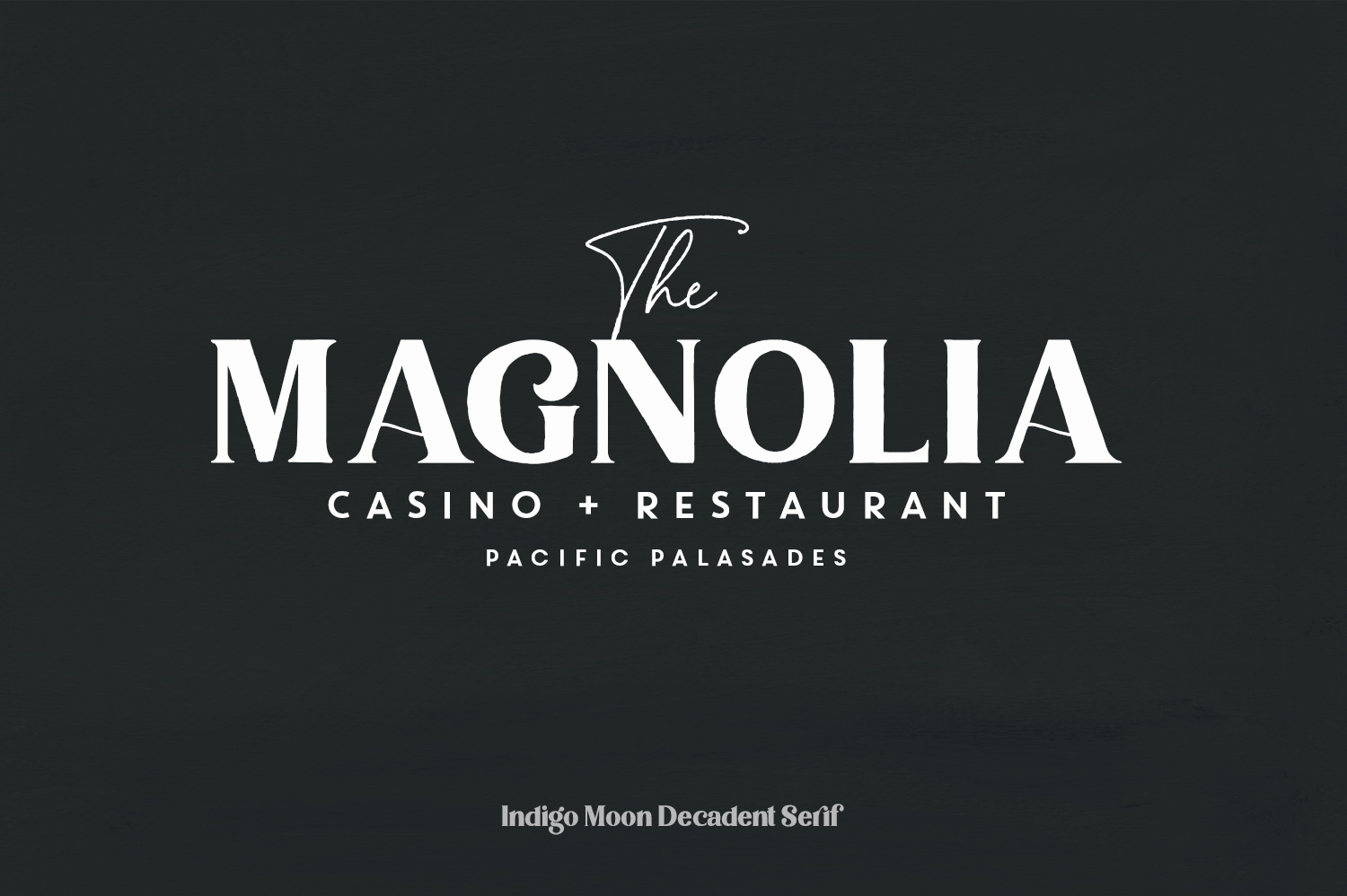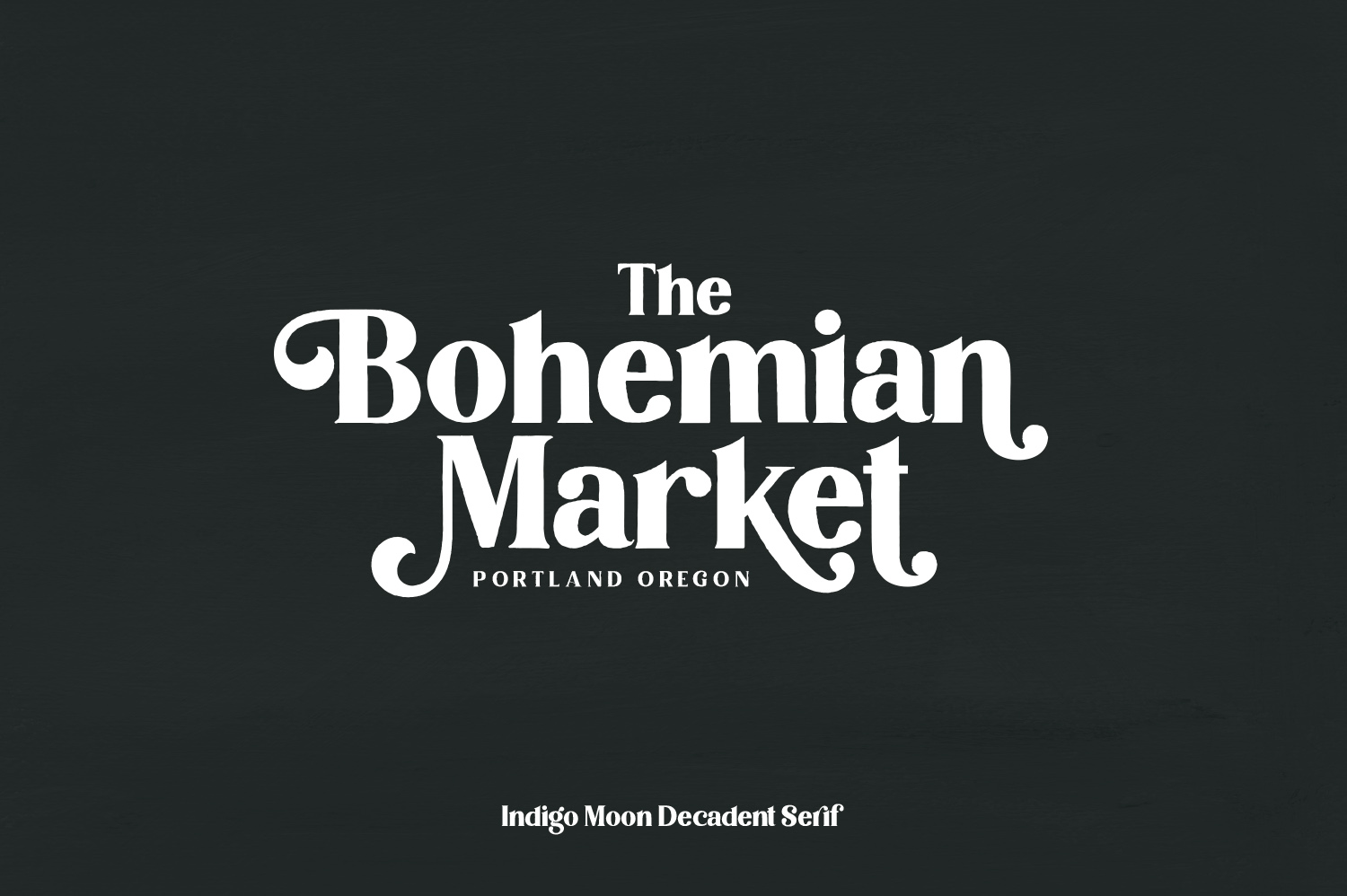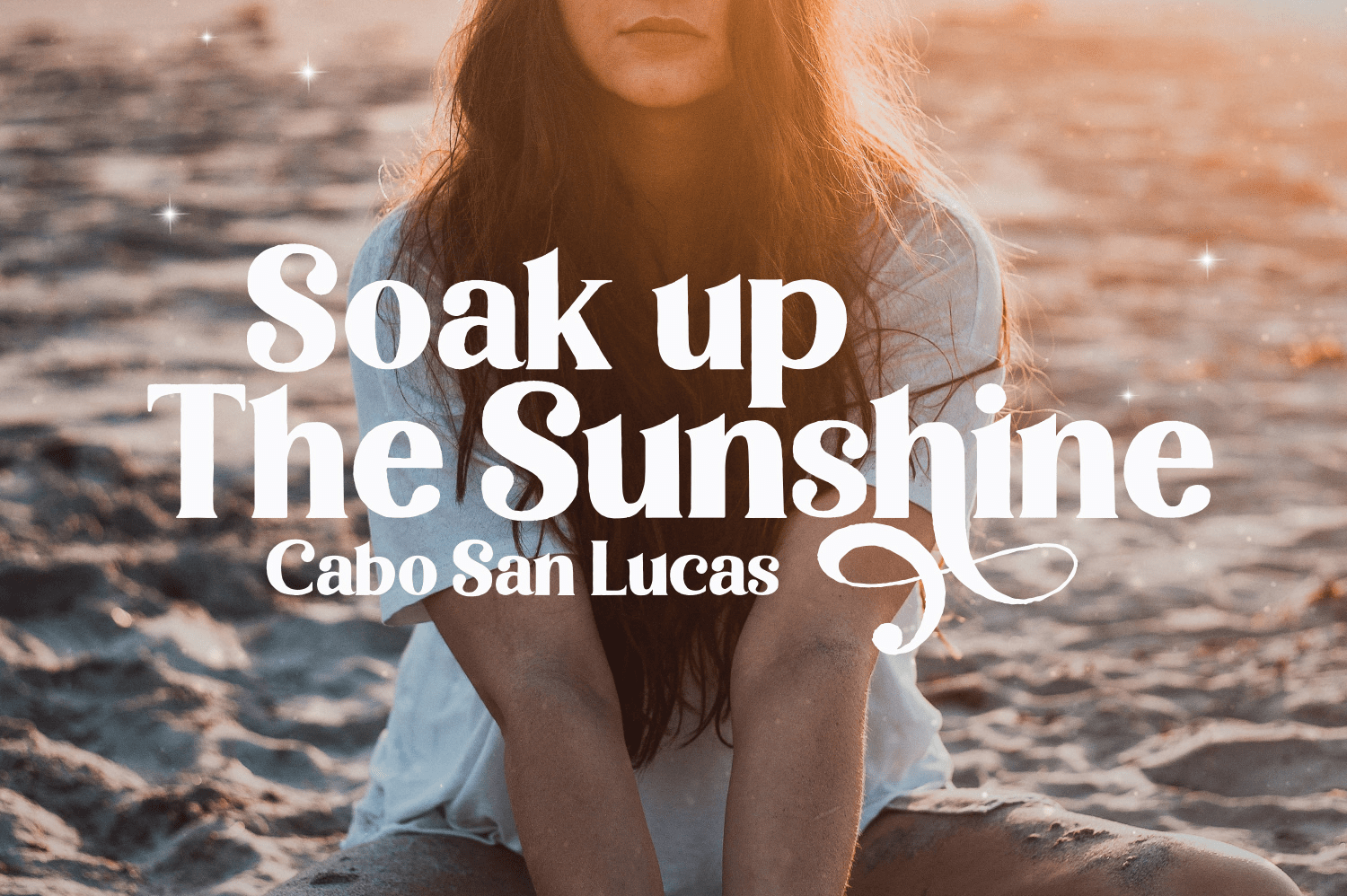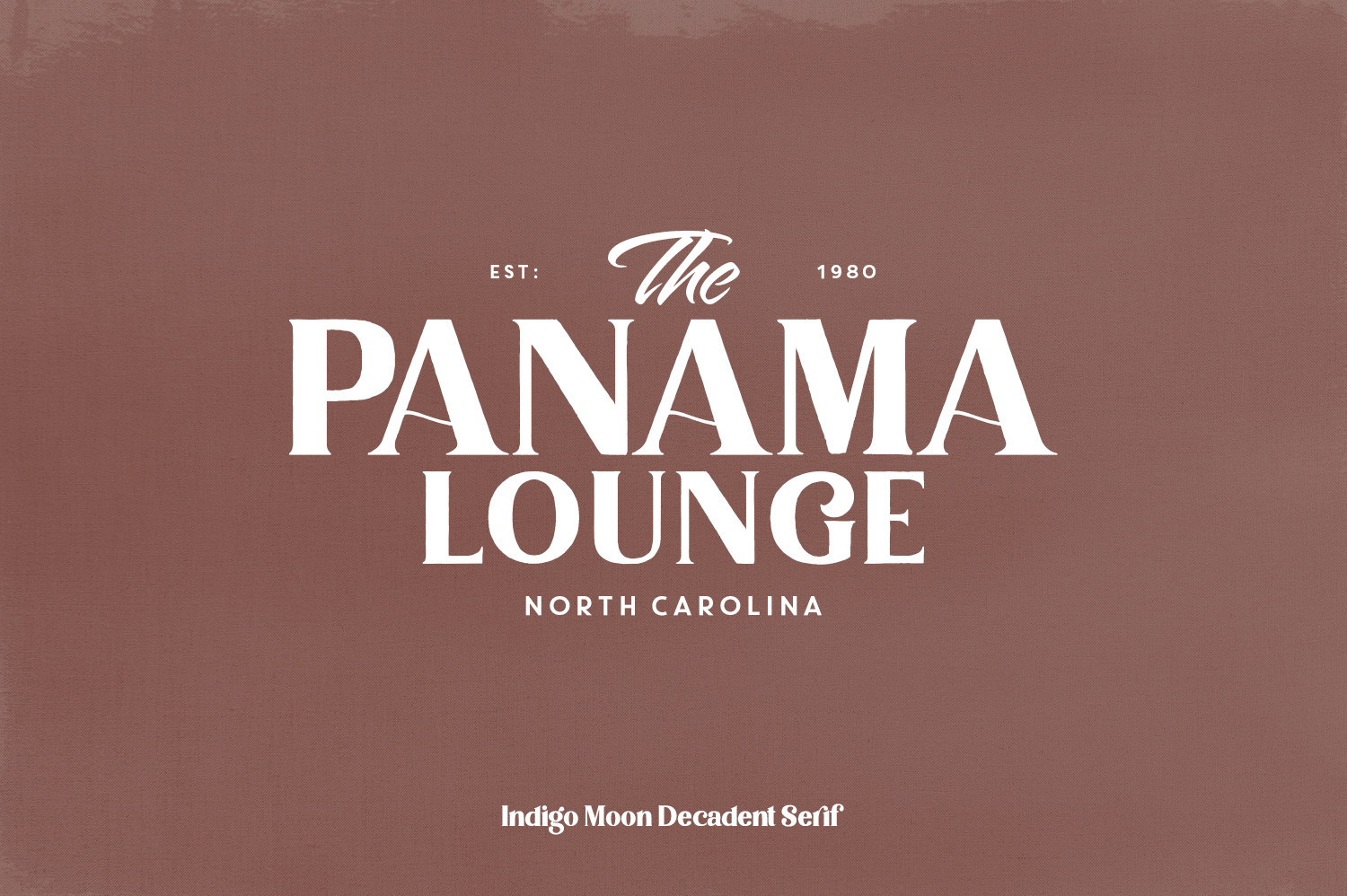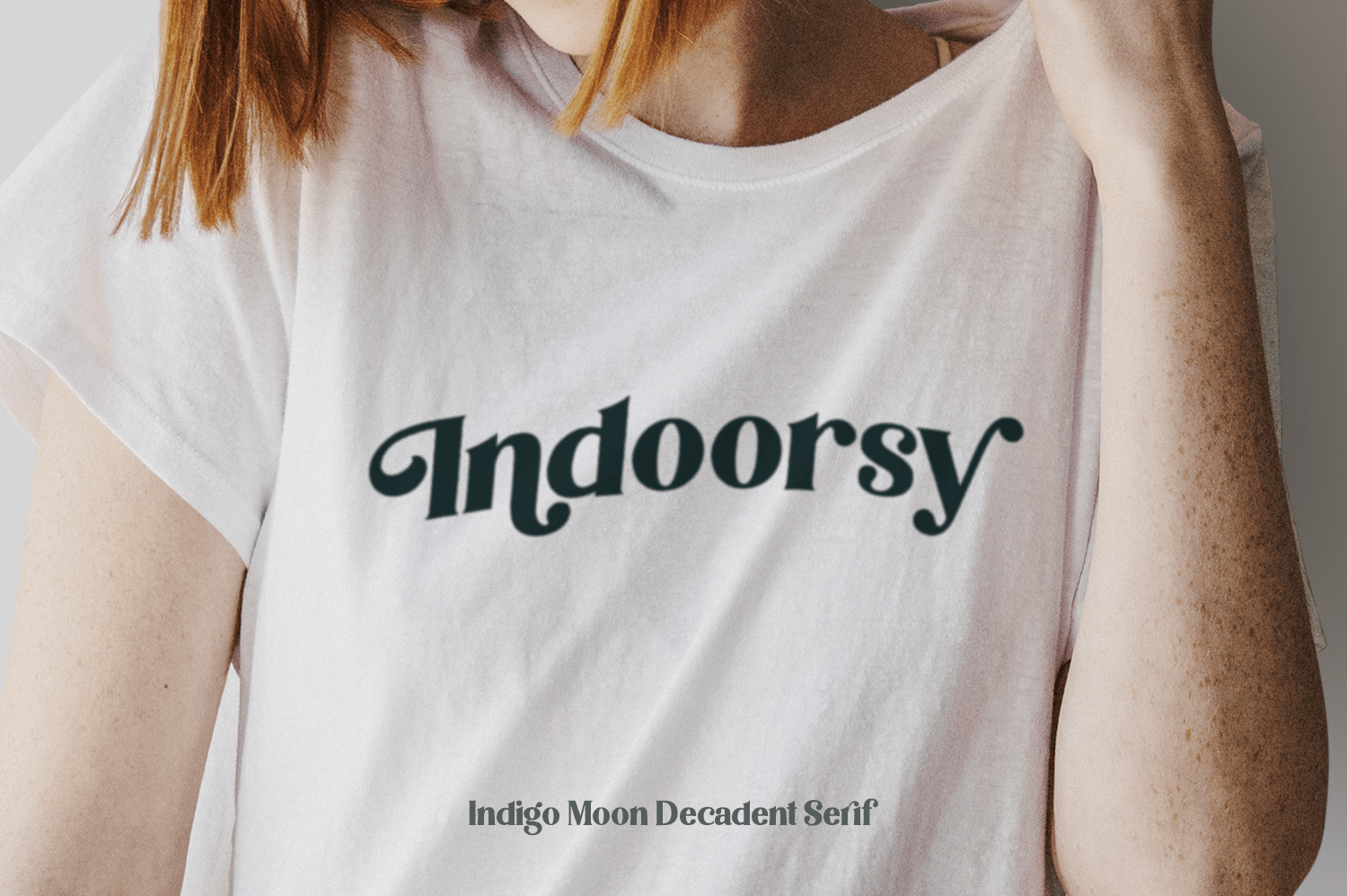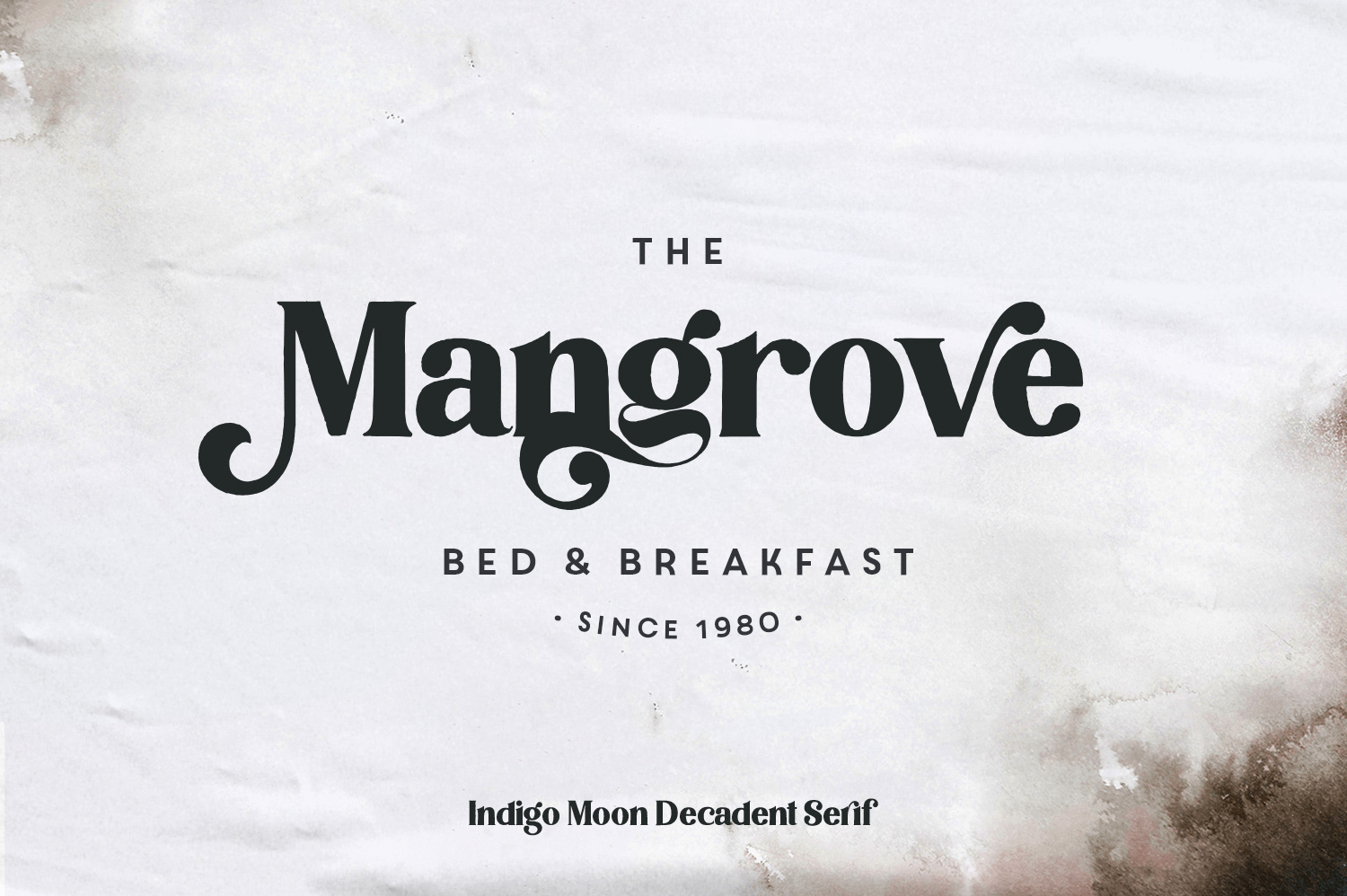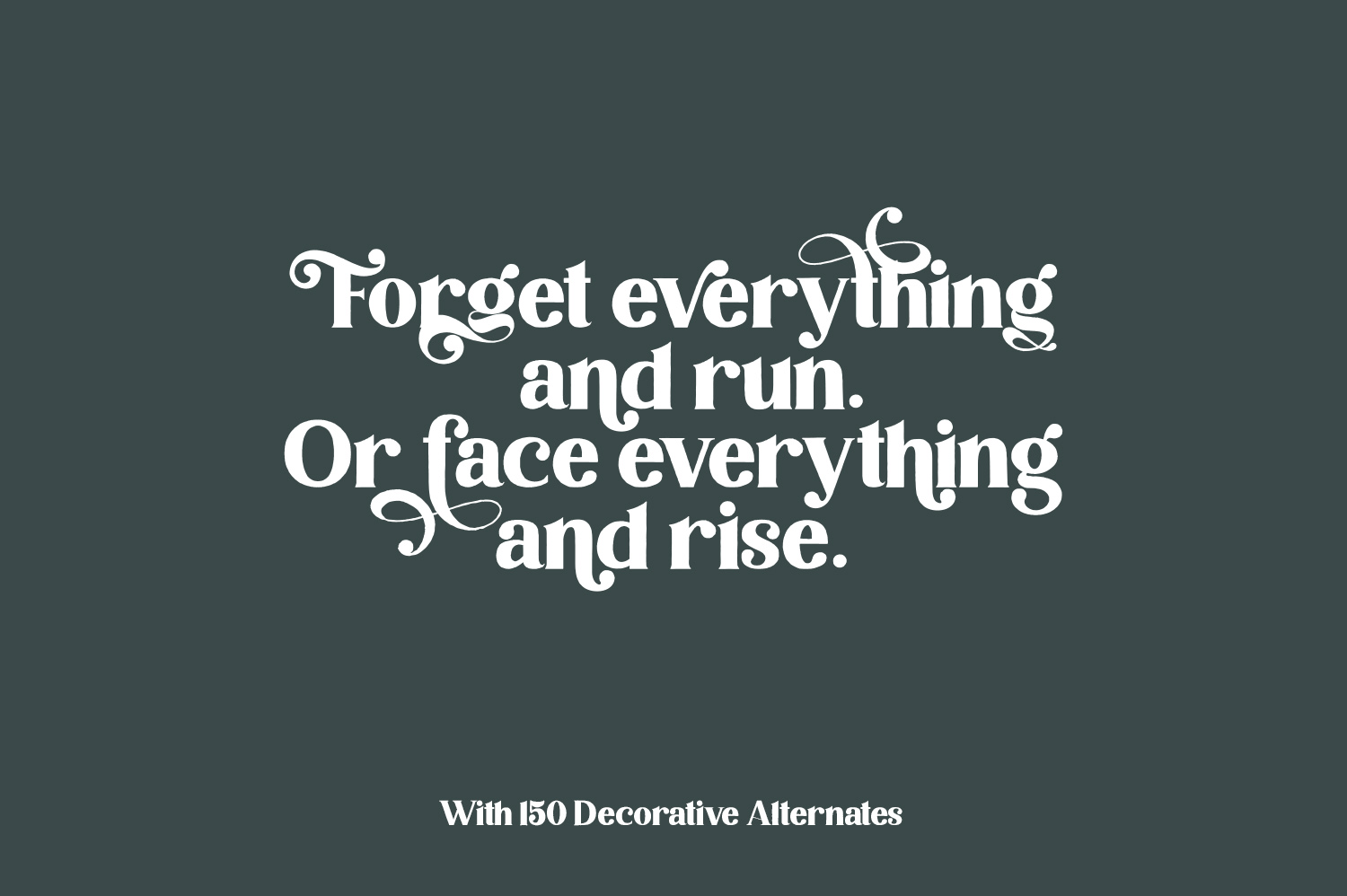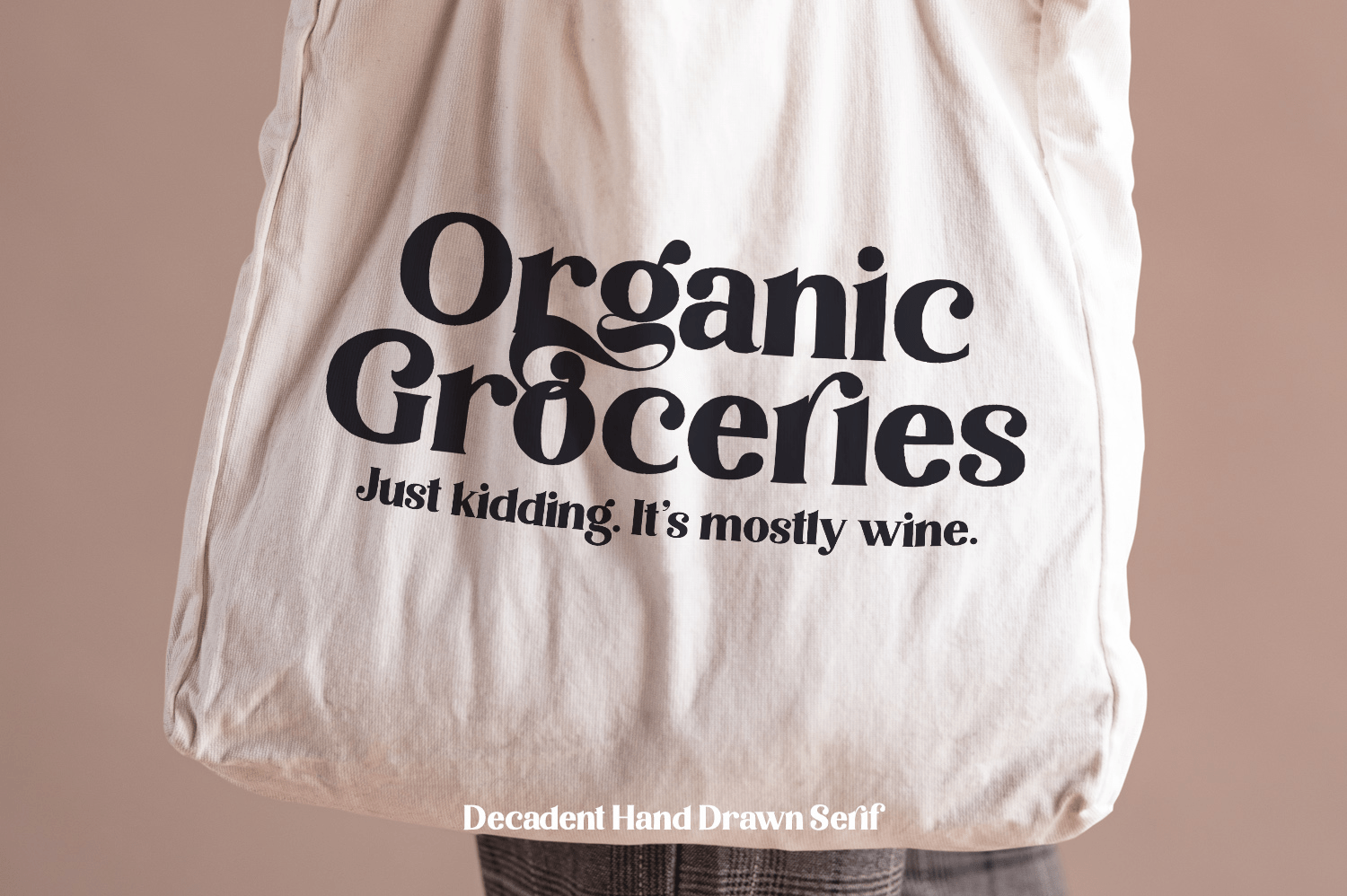
Indigo Moon
Font Family by Callie Rian & Co
Introducing Indigo Moon - a decadent, classic serif with over 150 hand-illustrated alternates, and preserved texture, for a uniquely vintage, yet modern feel.
Each letterform has a slightly rough exterior that works beautifully to enhance Indigo Moon's soft, conventional details. This versatile display typeface has enough character for logos and branding, as well as headlines, apparel, bridal and more. Keep it classic, or get decorative with ornate alternates for both uppercase and lowercase glyphs!